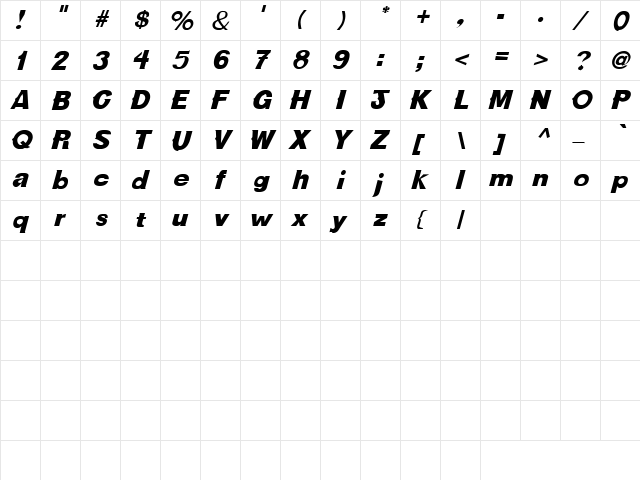
Own Way 4 Italic
Design Context for Own Way 4 Typeface
Own Way 4 offers clean, dependable letterforms without strong stylistic allegiance, making it a practical choice for designers who need flexibility. The dynamic lean of this cut emphasises speed and emphasis in any layout.